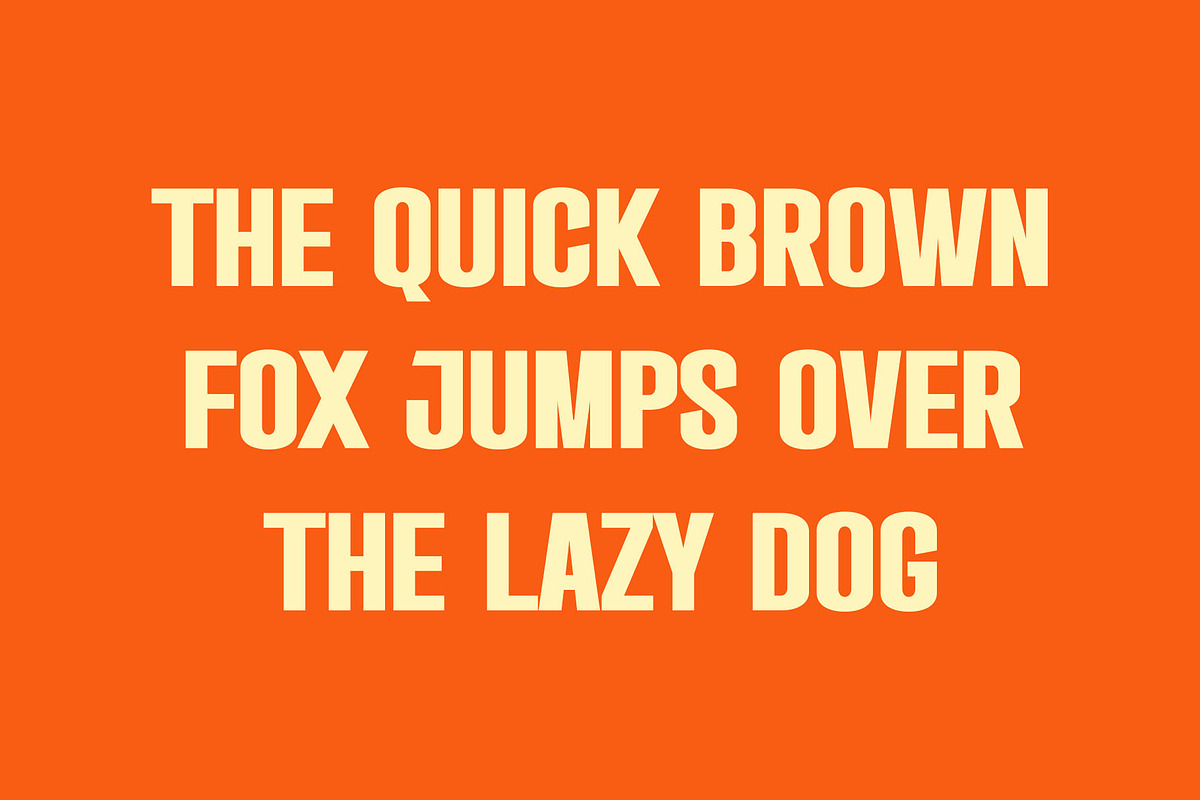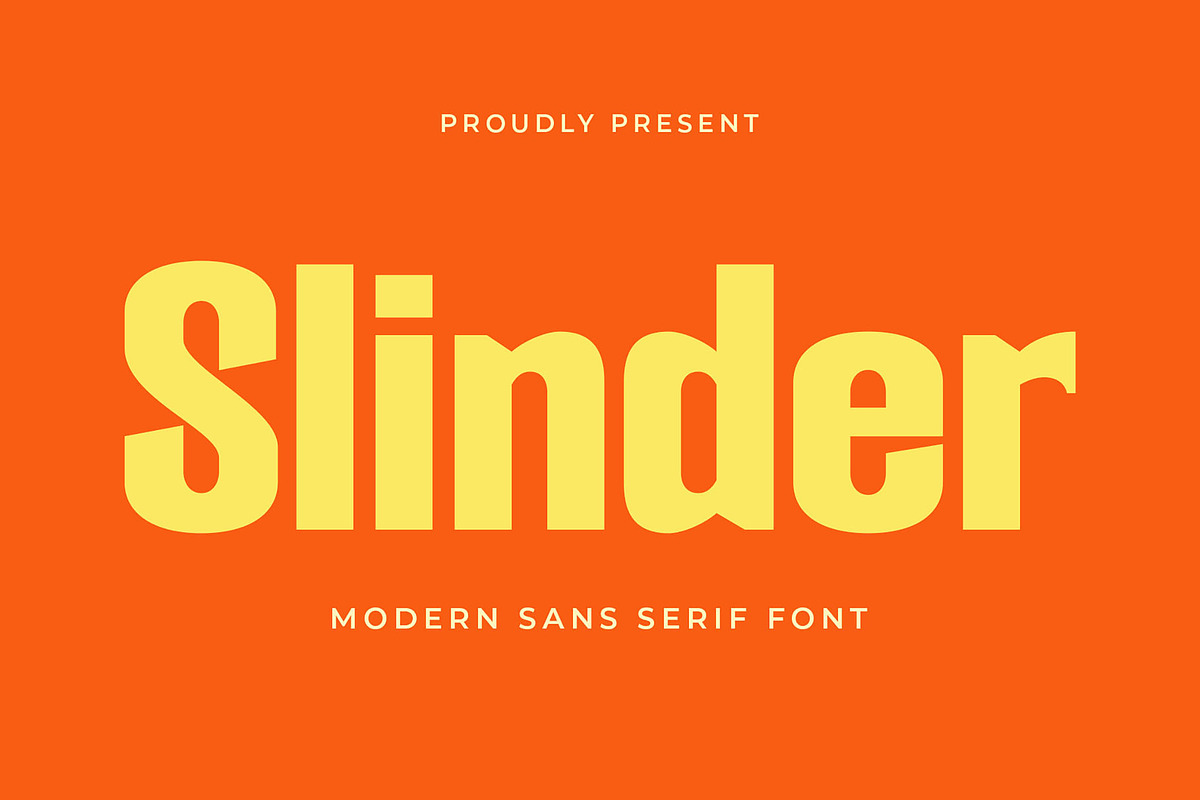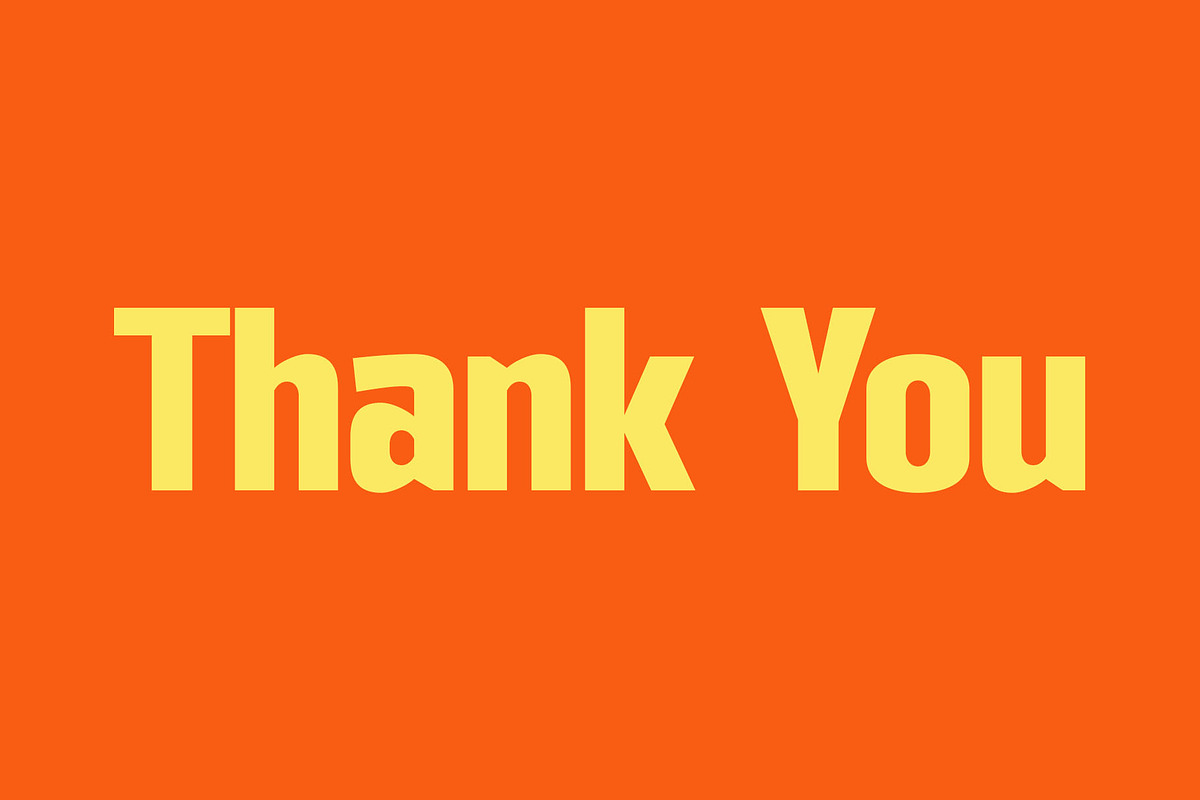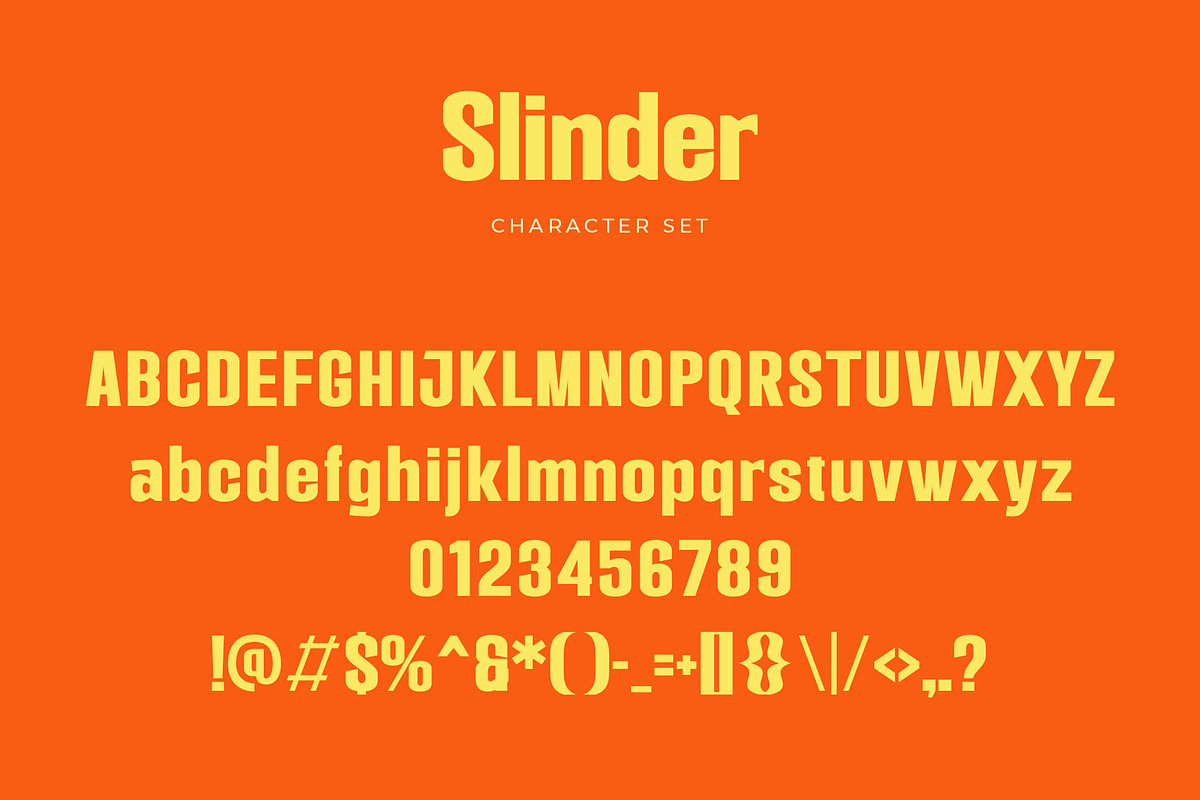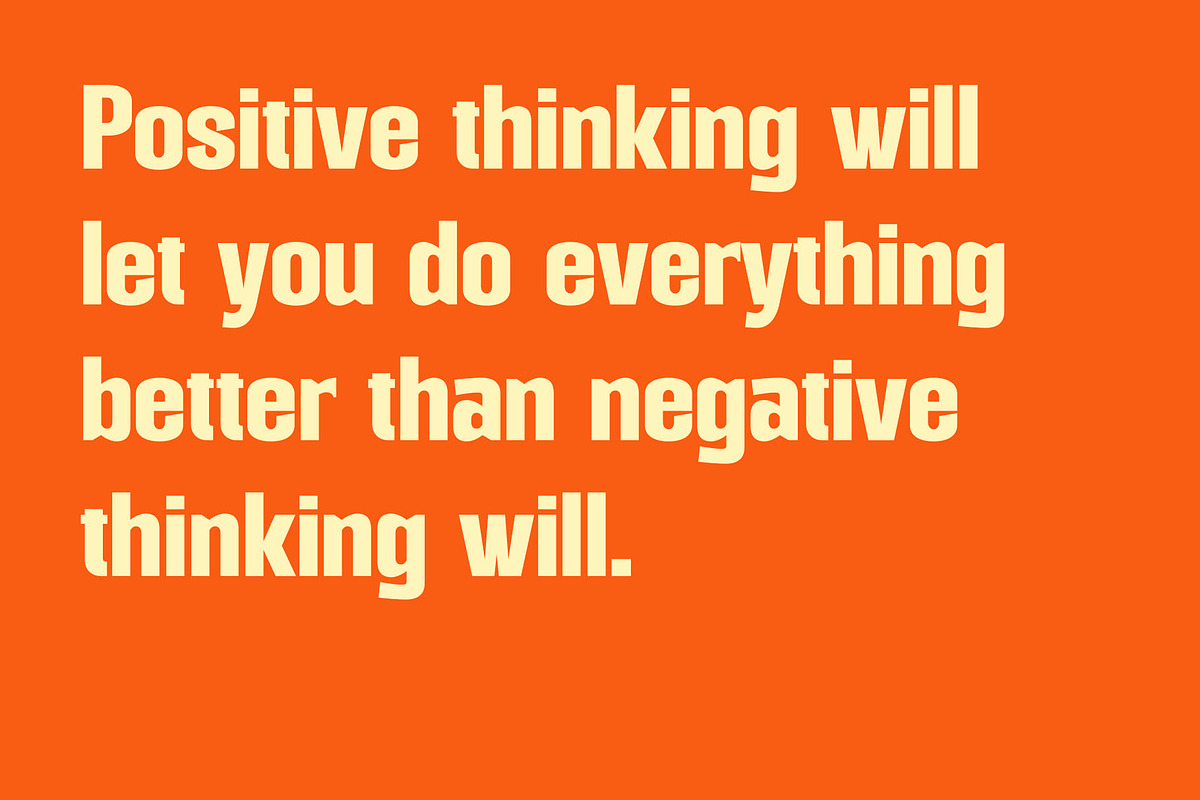
Slinder - Modern Sans Serif
Introducing our new Slinder, modern sans serif font with elegant style this is perfect for branding, logos, invitation, magazines, product packaging and more.